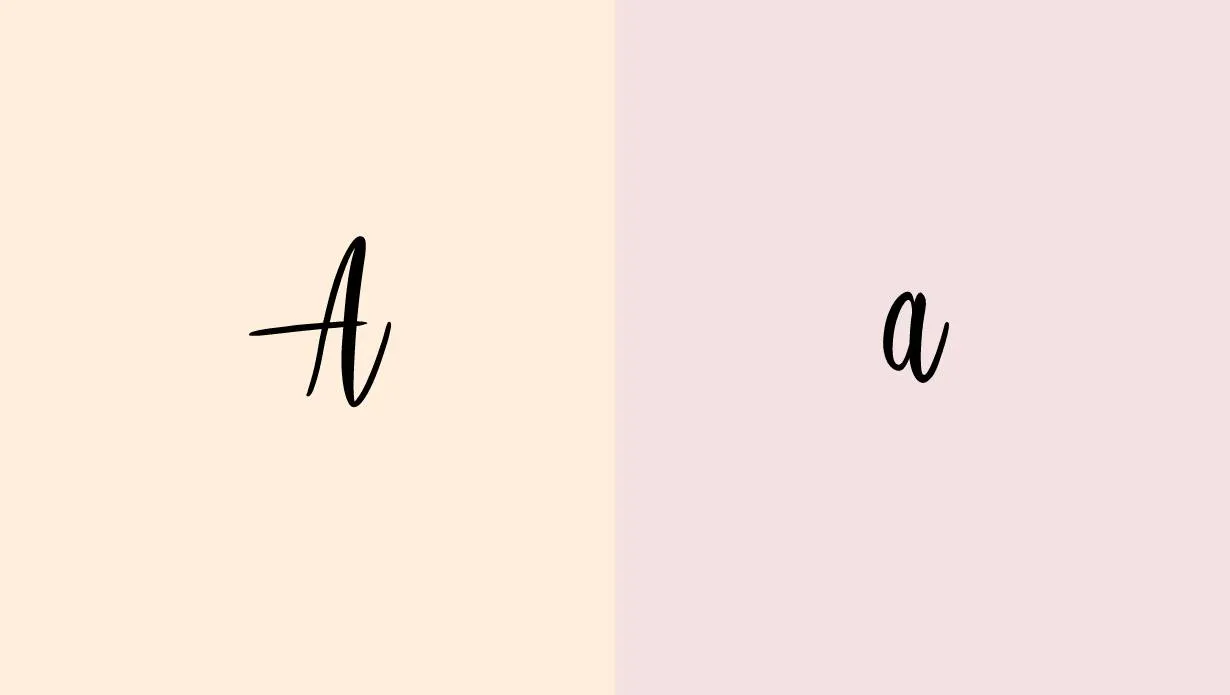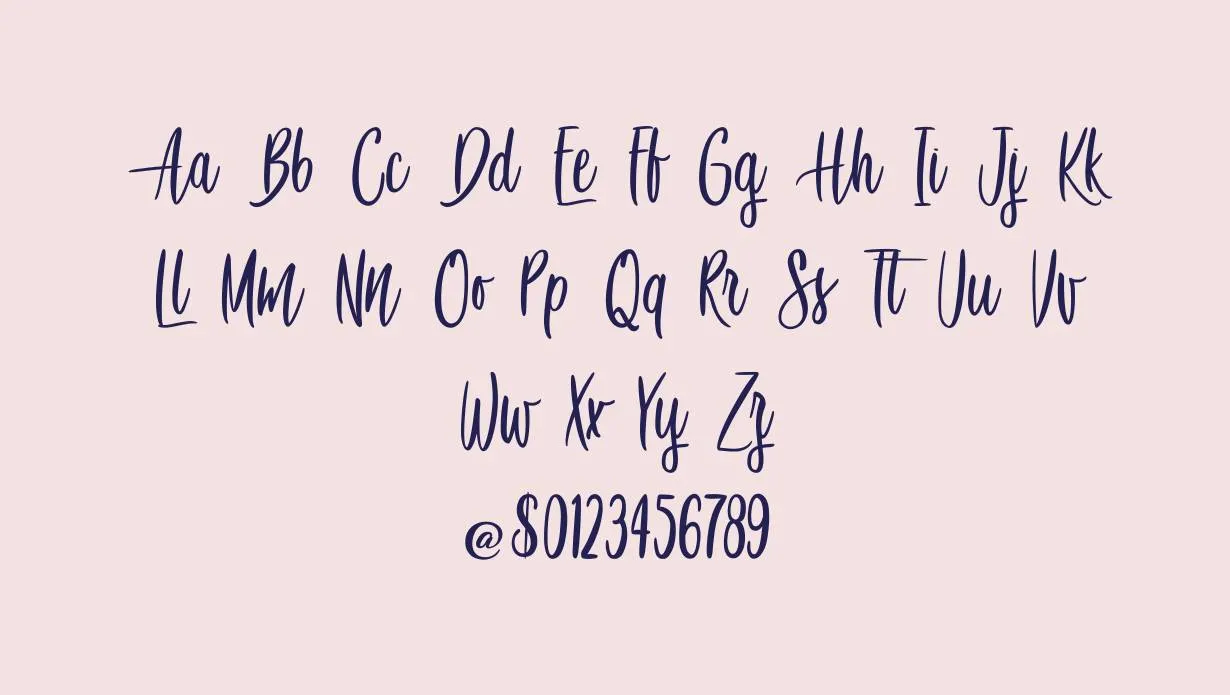
Awesome Birds Font is a very attractive handwritten font. This stunning font was designed by Suthi Srisopha and manufactured by Typhoon Type. The weight of the font is Semi-Light and its width is condensed. This font is available in both formats True Type Font and Open Type Font.
You can also use it for pairing it with other fonts like Brittany Signature Font to give a more attractive look to your projects. It has only one regular style but the look of this font is very classy.